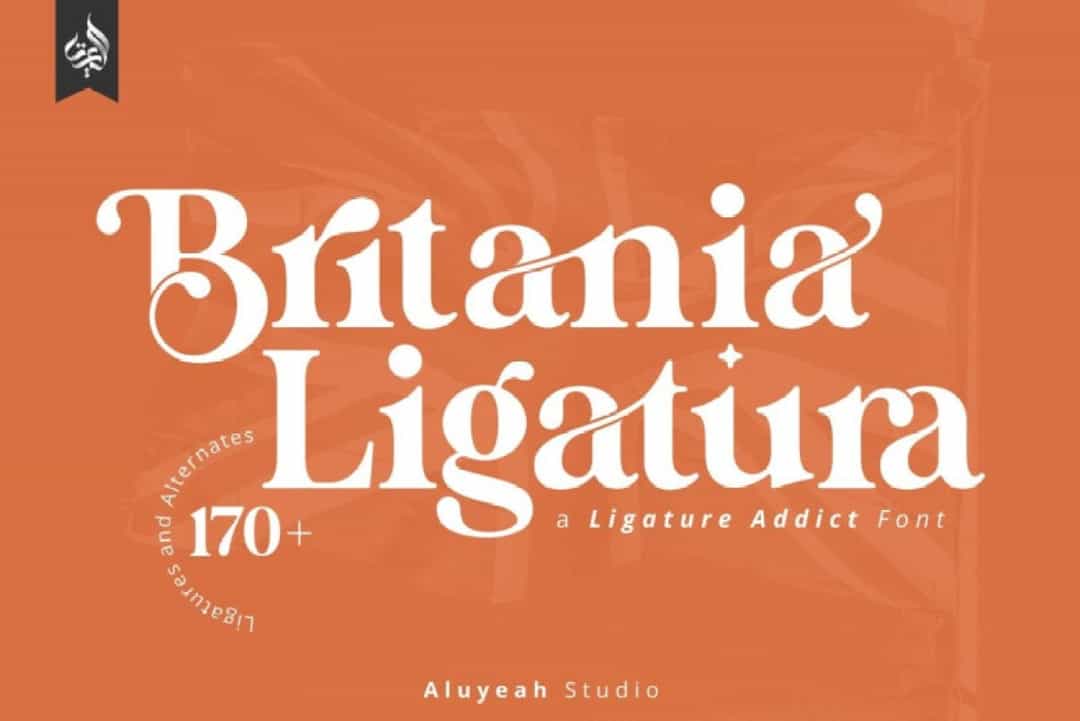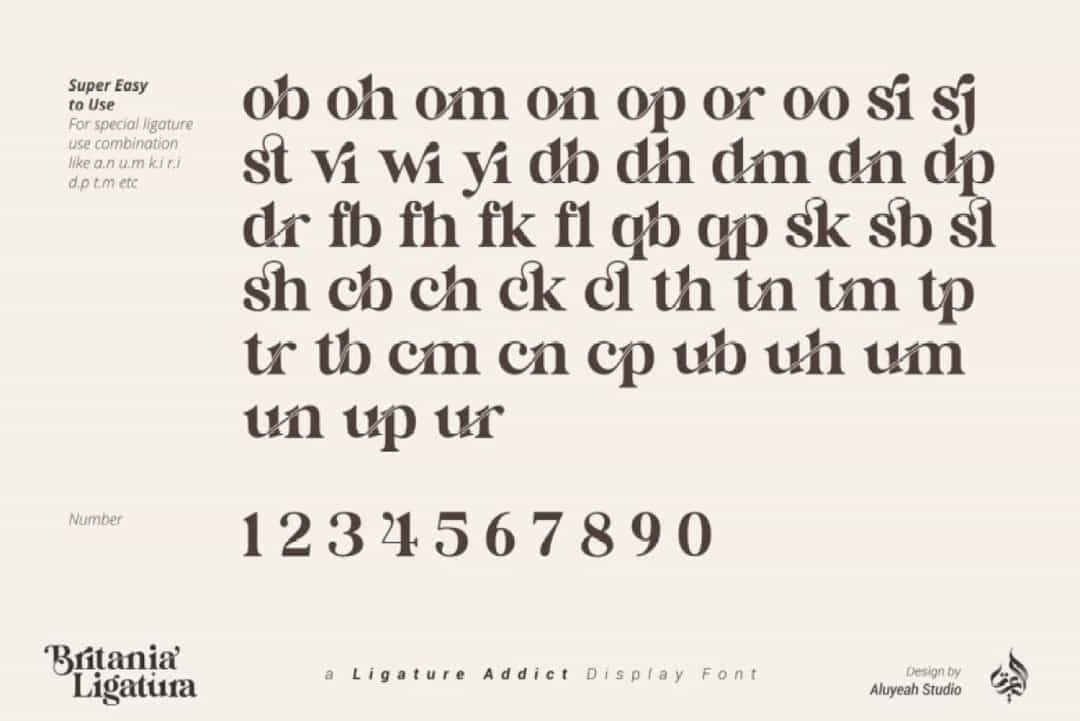
Britania Ligatura Serif Font is a stunning Ligature Addict Display Typefaces created by Aluyeah Studio with 170 plus alternate and ligature letters to produce elegant, stylish, classic and fancy styles.